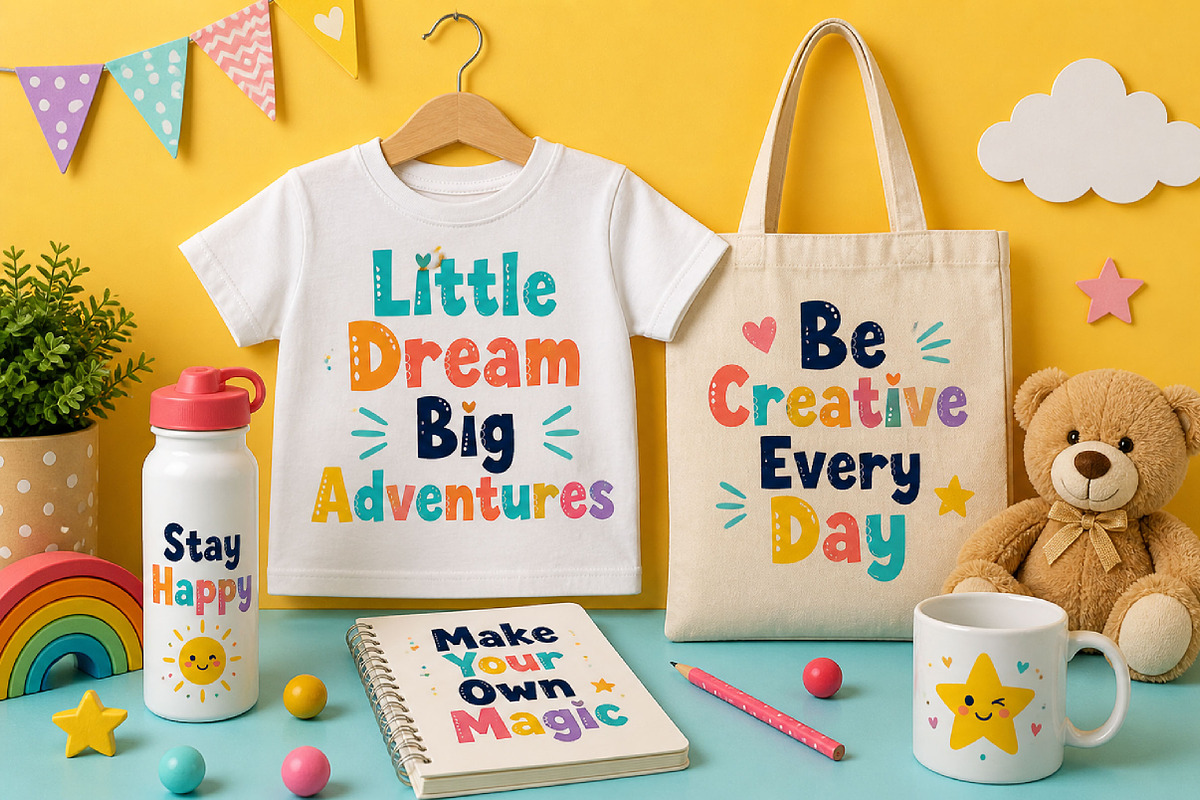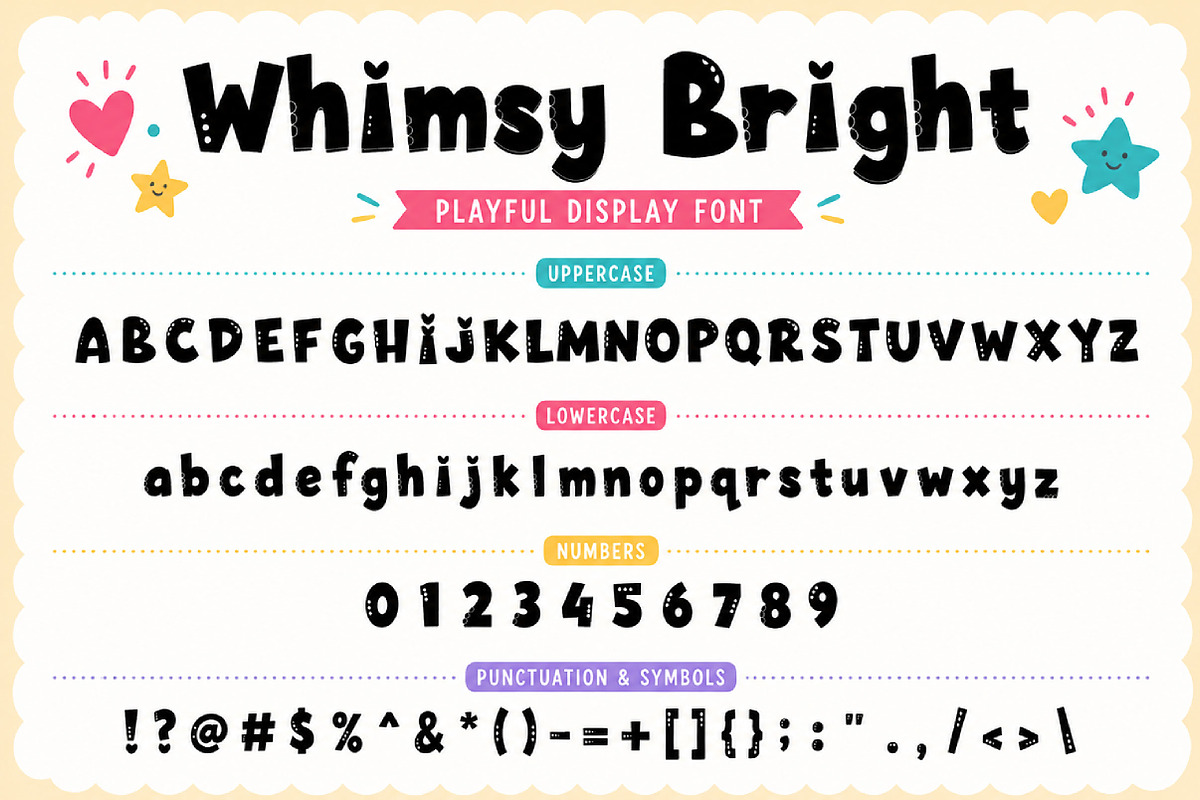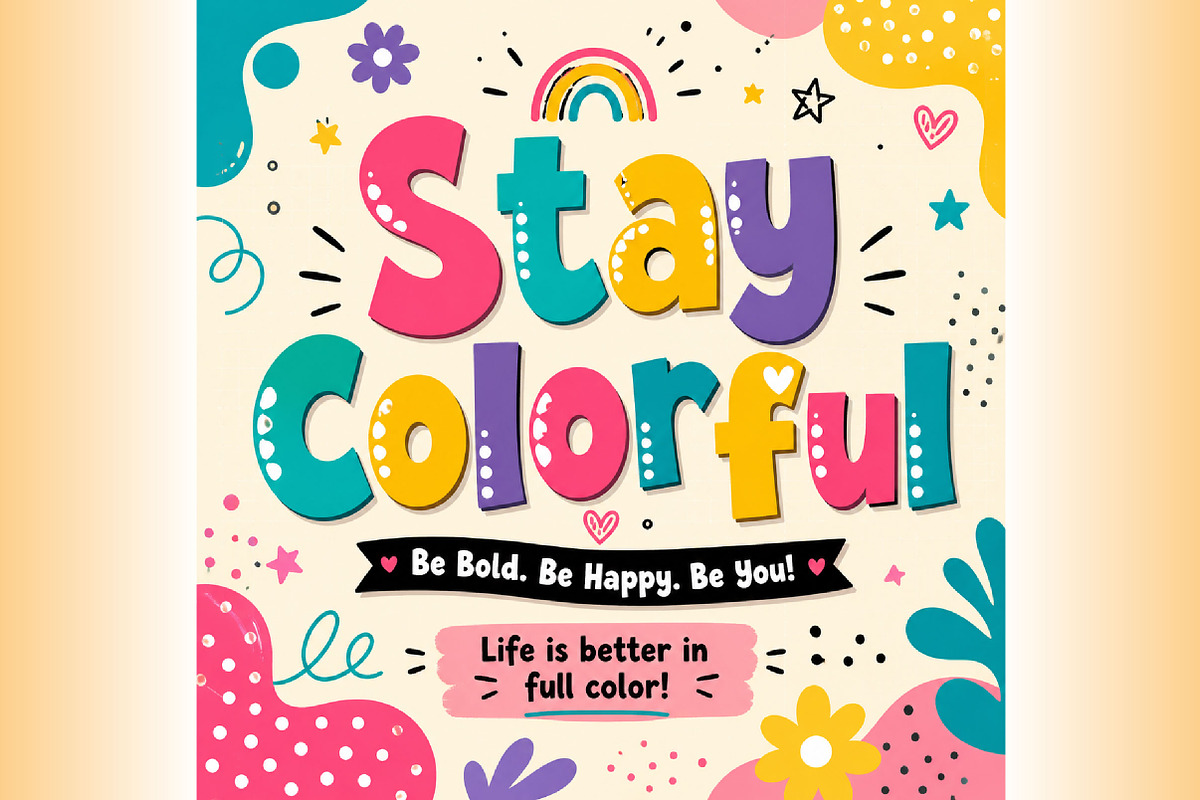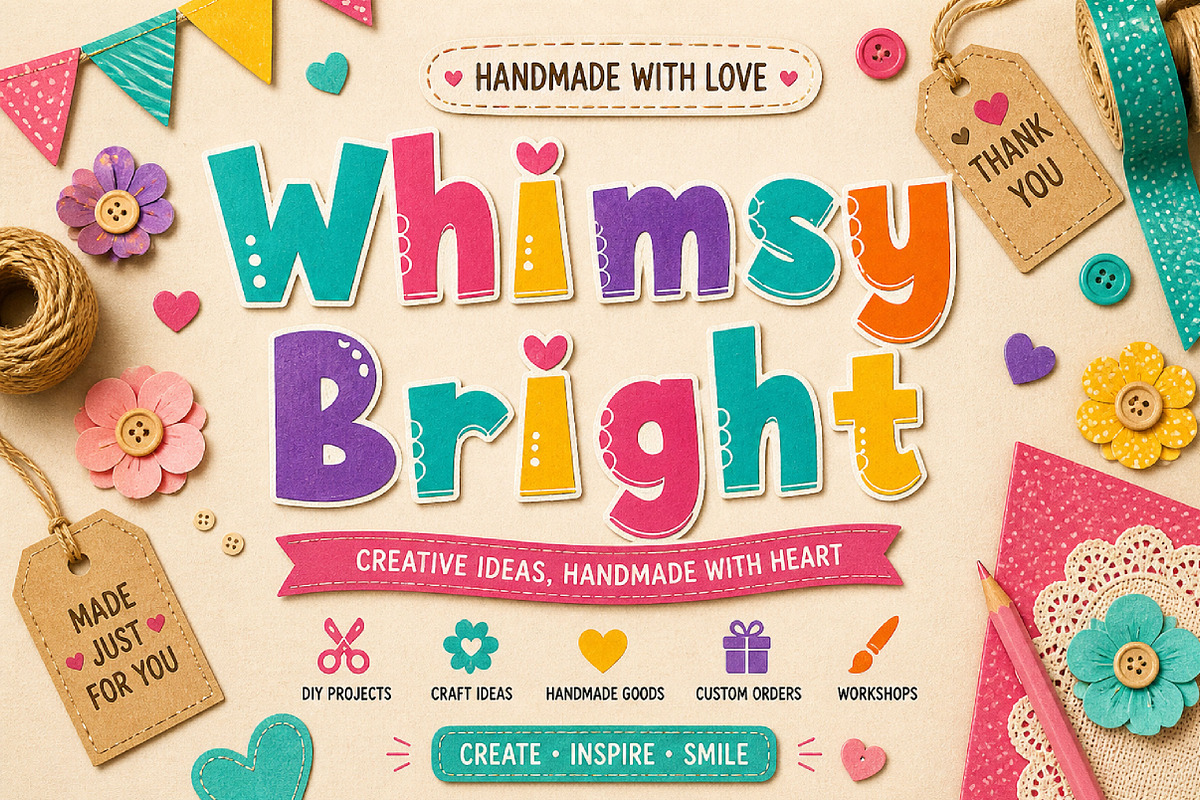
Whimsy Bright
Whimsy Bright – Fun Playful Display Font
Whimsy Bright is a fun playful display font with bold shapes, cute decorative details, and a cheerful handmade style, perfect for kids designs, posters, logos, packaging, stickers, and social media graphics.
Whimsy Bright is a playful decorative display font designed to bring joy, charm, and creativity to your design projects. With its bold letterforms, whimsical details, and friendly hand-crafted personality, this font creates an eye-catching look that feels bright, fun, and full of character.
Its cute and playful style makes Whimsy Bright perfect for designs that need a cheerful and imaginative touch. Use it for children’s products, classroom designs, posters, logo design, product packaging, stickers, party invitations, social media graphics, merchandise, website headers, and creative quotes.
Kids and children’s products
Posters and headlines
Logos and branding
Stickers and labels
Product packaging
Classroom designs
Party invitations
Merchandise design
Creative quotes
Playful decorative style
Bold whimsical letterforms
Cute handmade details
Cheerful modern look
Perfect for display use